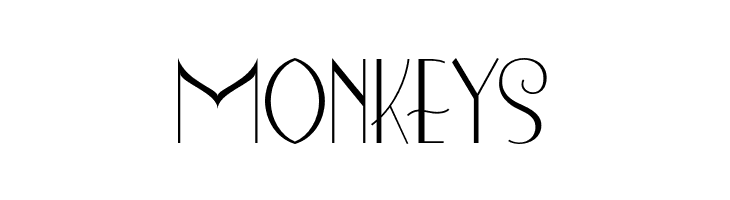
( Tadaca is a very original font. All this typography is based on latin letters, but i wanted to make them easier, even if some of them are designed according to what they make me feel. I'm 15 years old and it s my first one, i worked hard on it ! Enjoy ! )